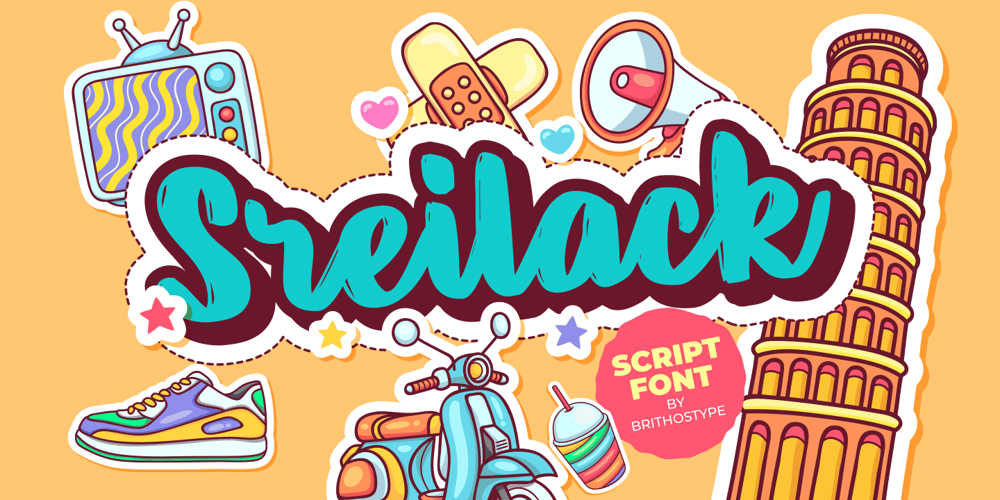
Sreilack Font Family was designed by Ali Hamidi and published by Brithos Type. Sreilack contains 1 styles and family package options. Sreilack is a cute, flowing and thick lettered display font. It will add an incredibly joyful touch to your designs. Add this beautiful display font to each of your creative ideas and notice how it makes them stand out!